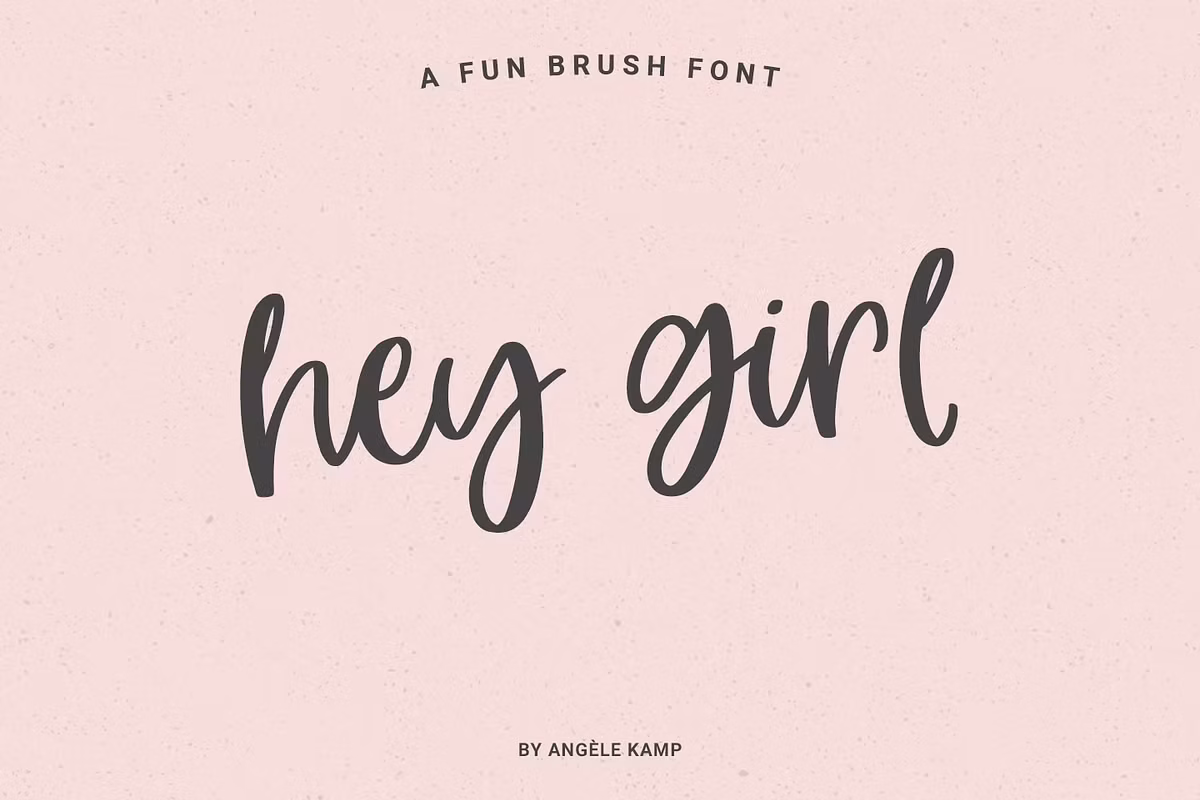
Hey Girl - Fun Smooth Brush Font Free Download
Hey Girl - Fun Smooth Brush Font Free Download is a playful and energetic brush script typeface with smooth strokes and a hand-drawn feel. This font is perfect for creative projects that need a fun, casual, and friendly vibe, including branding, social media graphics, greeting cards, posters, and event invitations.
The smooth brush texture adds a natural, organic look, while the playful design brings an approachable and lively personality to your typography. Whether you're designing for a fun brand, creating a birthday invitation, or adding a quirky touch to a project, Hey Girl brings a fresh and lively style.